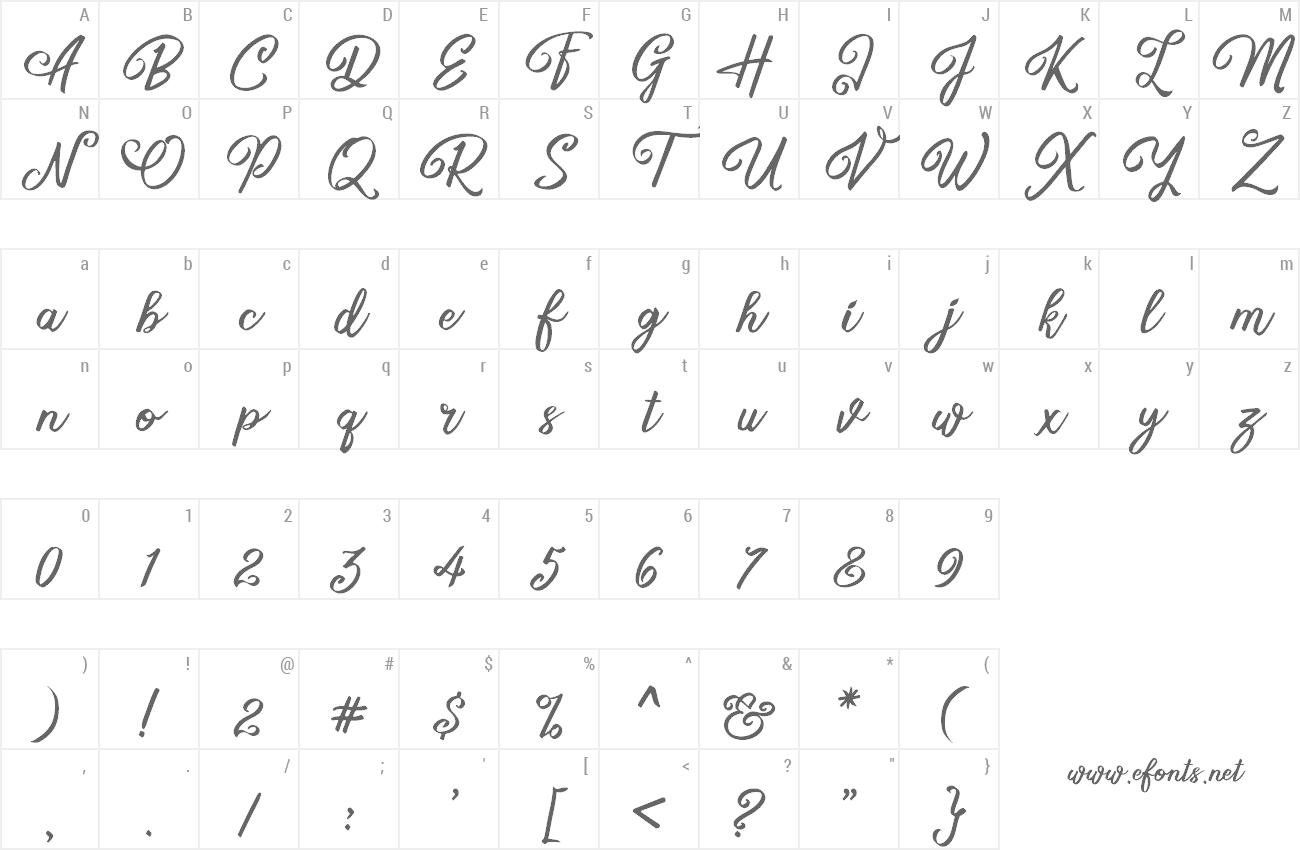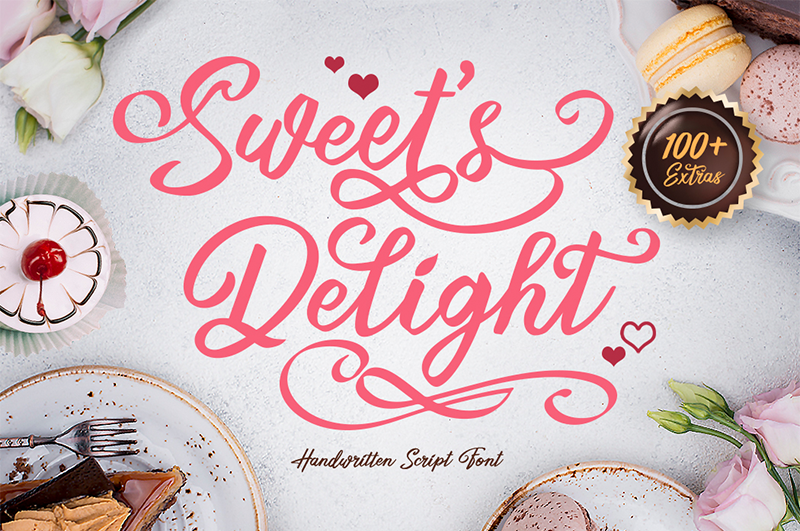
Preview and download Sweets Delight Font. Created by Indra Renov in Script Handwritten styles with Free for personal use license.
Thank you for downloading Sweet's delight font. Commercial license available at https://fontbundles.net/rvst A smooth form and natural flow, "Sweet delight" give its own uniqueness in every word arranged by the letters. Give the impression of being happy, comfortable, happy, passionate, and full of love. bONUS 72 swash and 62 clipart (botanical, ribbons, wreath, teacup, and cupcakes) will give you a wide range of customization for your projects. any donation is very appreciated! Enjoy and Thank you! |